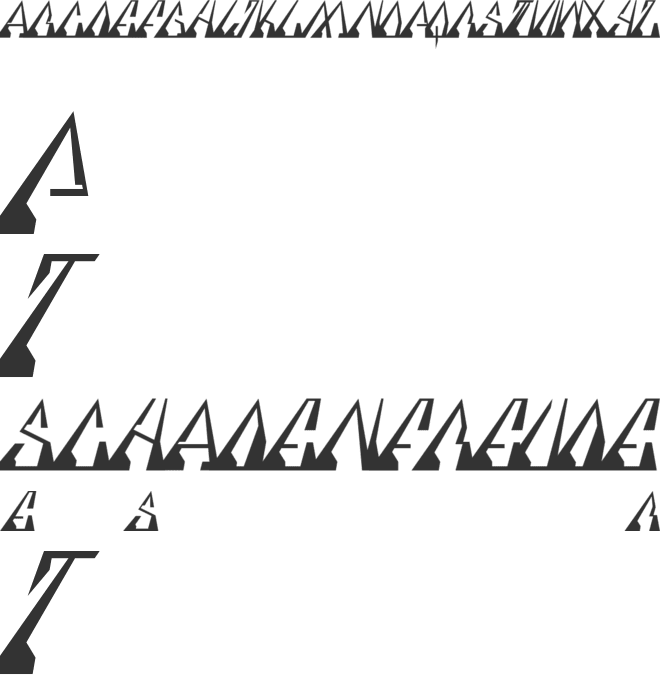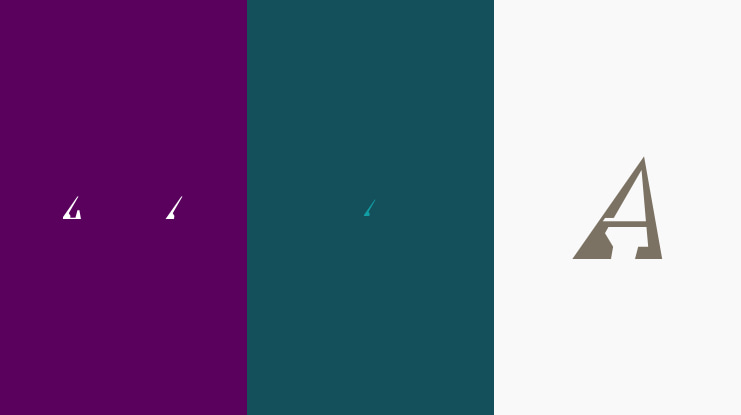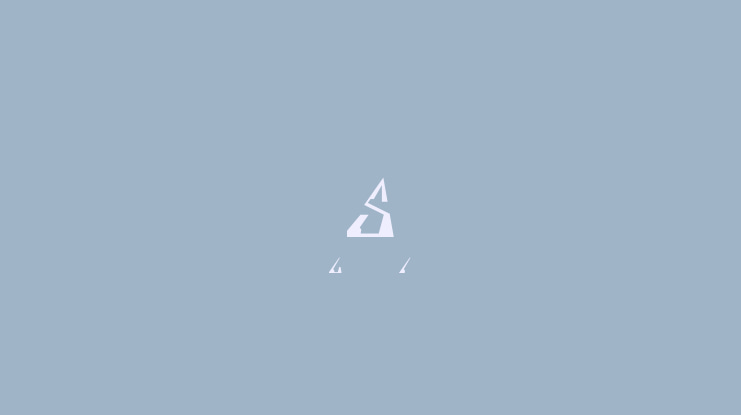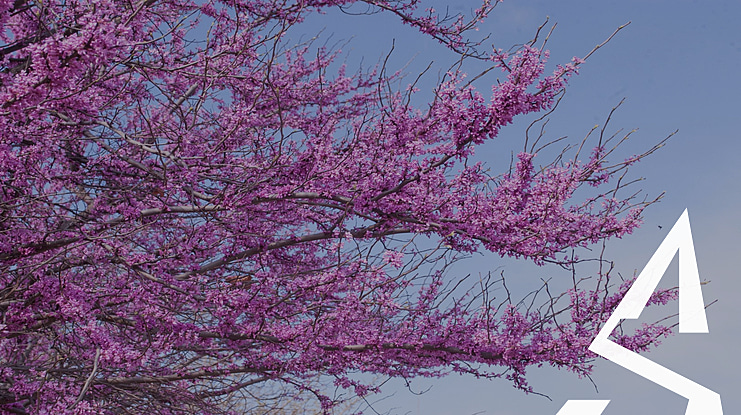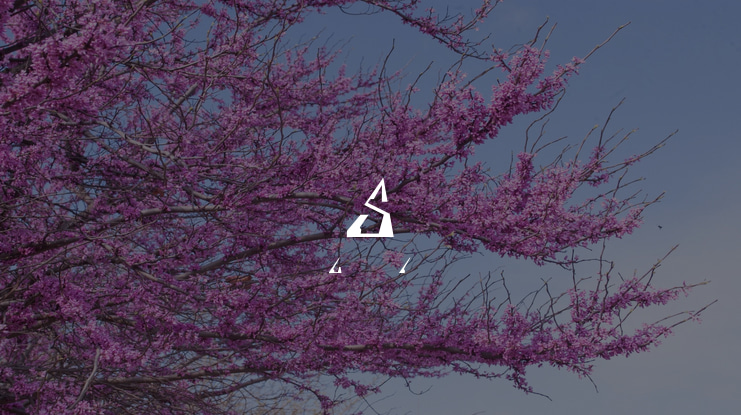
Specere Font
Specere is a graphic sans-serif inspired by the dramatic perspective of skyscrapers. The letterforms are unique, in that, they are meant to touch. This typeface can be used as a graffiti typeface, a futuristic typeface, or anything else your creativity can conjure up. I hope you enjoy what I have created.